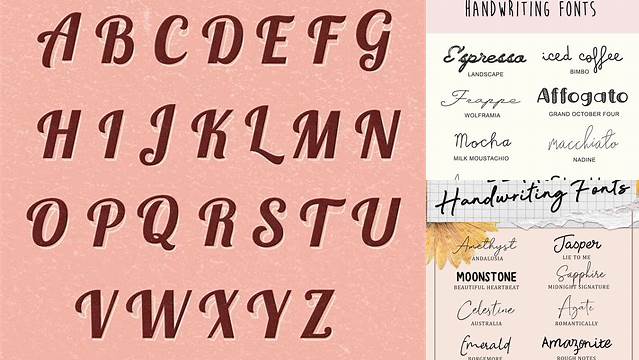
Free Handwriting Fonts A To Z: Download & Guide
Are you looking to add a personal touch to your designs, or maybe you're just a fan of the charm of handwritten text? Well, handwriting fonts are your secret weapon! They're perfect for everything from crafting beautiful invitations to creating eye-catching social media posts. And the best part? You can find tons of handwriting fonts A to Z available for free download! Let's dive into the world of these awesome fonts, explore where to find them, and how to use them to spice up your projects. This article will be your go-to guide for everything related to handwriting fonts, covering their uses, where to download them safely, and some tips to make your designs pop. So, let's get started, guys!
Why Handwriting Fonts Are Totally Awesome
Handwriting fonts bring a unique, human element to any design. In a world dominated by sleek, polished digital aesthetics, these fonts offer a refreshing contrast. They can instantly make your work feel more approachable, friendly, and engaging. Think about it: a perfectly clean sans-serif font might look professional, but a handwriting font adds a personal touch that resonates with your audience on a deeper level. It's like getting a handwritten note instead of a generic email – it feels more special, right? They're great for branding. Handwriting fonts can make your brand feel more personal and memorable. They are versatile. From logos to websites, these fonts can adapt to various design needs. And let's not forget the emotional connection. They can evoke feelings of nostalgia, creativity, and warmth, making your designs more memorable and impactful. Whether you're a graphic designer, a blogger, a social media enthusiast, or just someone who loves to get creative, handwriting fonts are an excellent tool to have in your arsenal. They're versatile, stylish, and can add a unique flair to any project, making your work stand out from the crowd. You'll find yourself using them over and over again. The possibilities are endless! Using handwriting fonts can really make your designs stand out. It is definitely worth the time to explore all the different options out there and find the perfect font for your project. You may be surprised at how much a simple change in typography can affect the look and feel of your design. Ready to make your designs shine? Let's move on and see where you can find these awesome fonts.
The Wide World of Handwriting Fonts: A-Z and Beyond!
When you're browsing through these sites, keep an eye out for fonts that fit your style. Do you want something elegant and script-like, or something more casual and playful? Consider the message you want to convey and the overall aesthetic of your project. The variety of handwriting fonts A to Z is extensive. There's a font out there for every kind of project. Remember to always check the licensing information before downloading and using any font. This will tell you whether the font is free for personal or commercial use, or if there are any restrictions on its use. The availability of handwriting fonts for free download gives you the opportunity to experiment and find the perfect match for your creative projects. There is a perfect font out there for your next project.